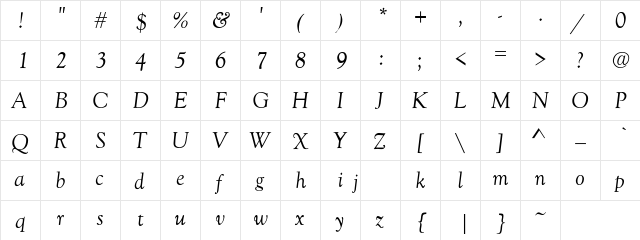
Glennis Italic Regular
Design Context for Glennis Italic Typeface
Glennis Italic takes a measured approach to typography — its balanced proportions and neutral character make it a reliable workhorse for both digital and print work. Its italic angle brings a sense of urgency and motion to the letterforms.
Pro Tip: Try Glennis Italic for annotation and caption copy alongside an upright companion — the contrast in angle creates a dynamic but ordered typographic system.